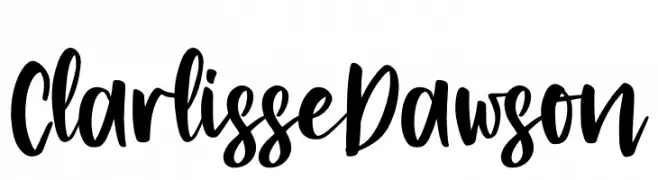
A bold, handwritten font with a playful and energetic style.
A dynamic and expressive handwritten font with fluid, flowing letterforms.
A dynamic, cursive script font with elegant, flowing strokes.
A dynamic, flowing script font with an elegant, handwritten style.
A lively and expressive handwritten font with dynamic strokes and playful loops.
A dynamic, italic handwritten font with medium contrast and elegant flow.
A bold, italic script font with a dynamic, handwritten style.
A dynamic, cursive font with fluid, slanted characters.
A dynamic, flowing script font with an elegant, handwritten style.